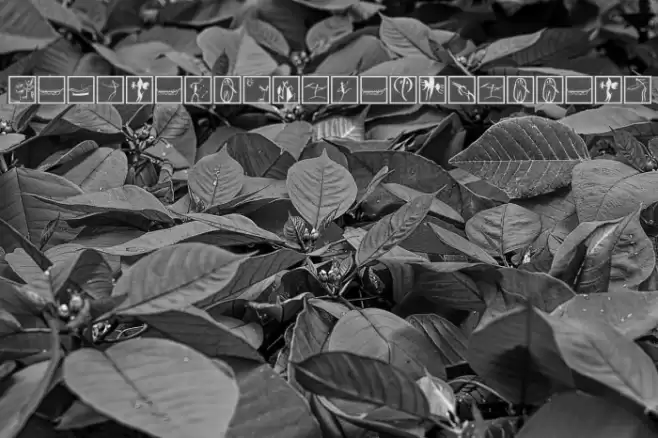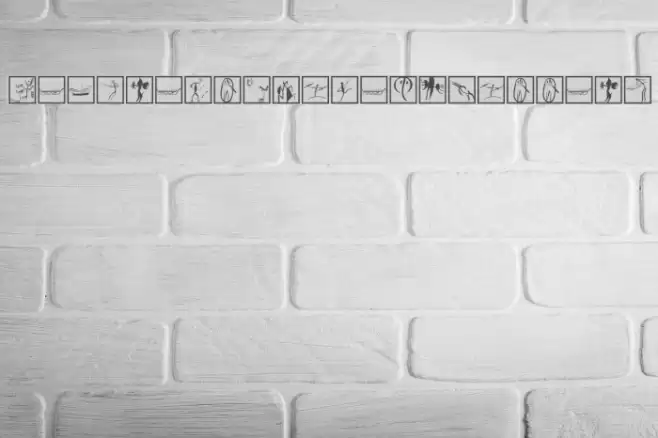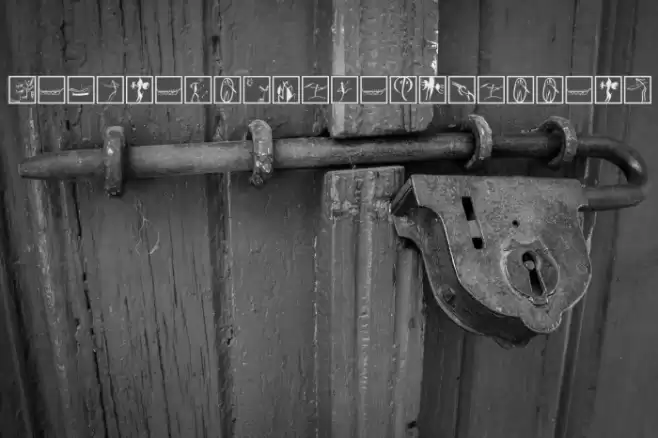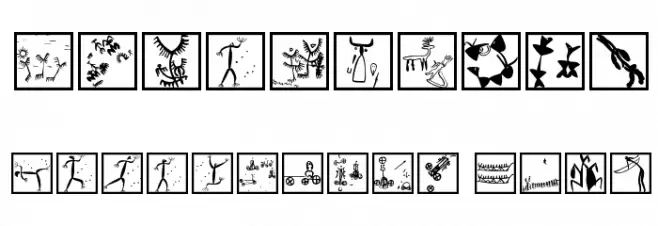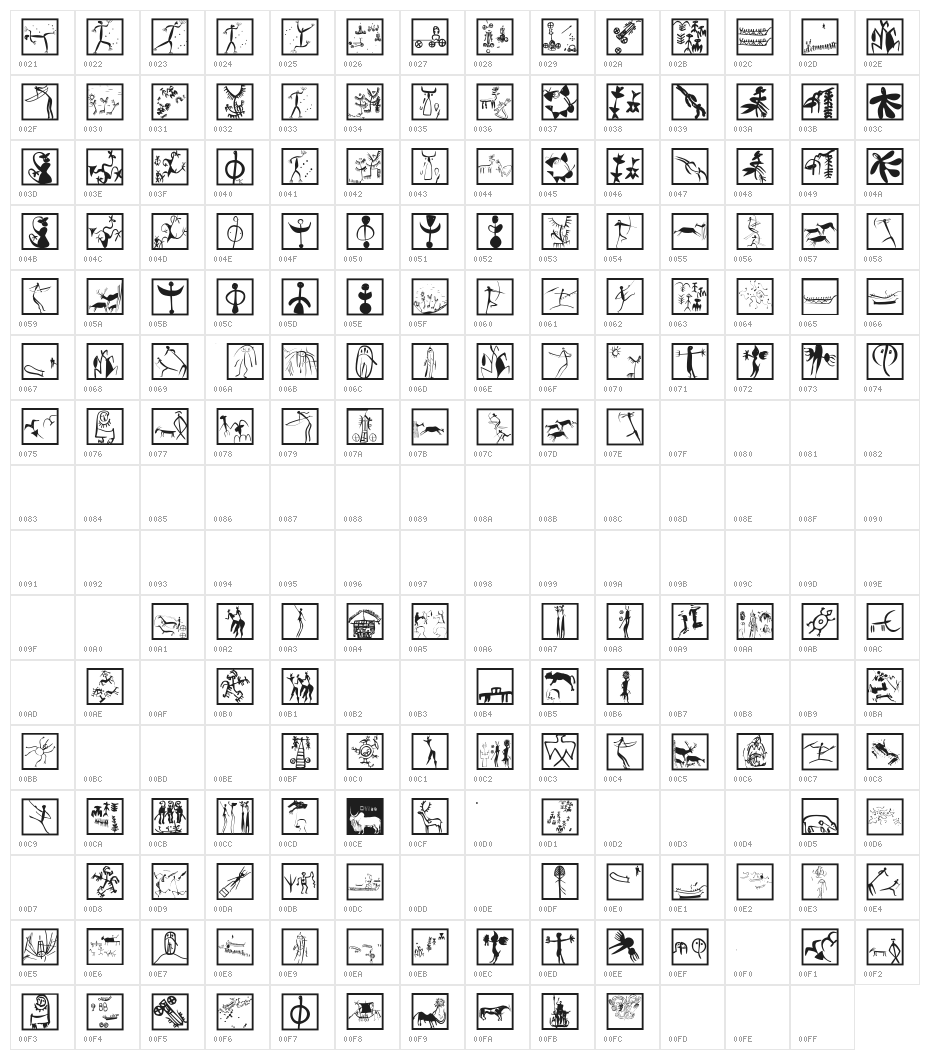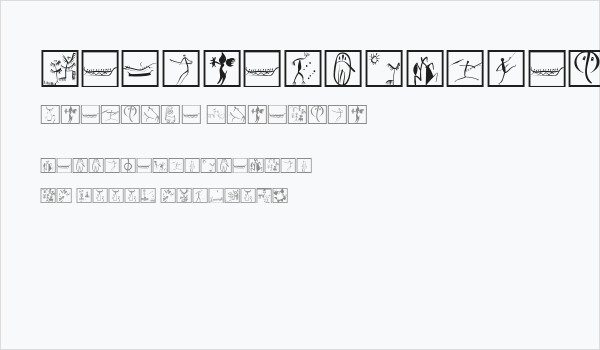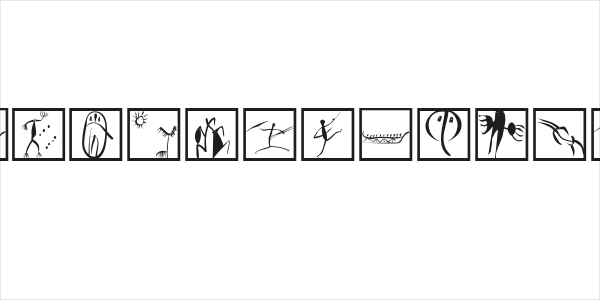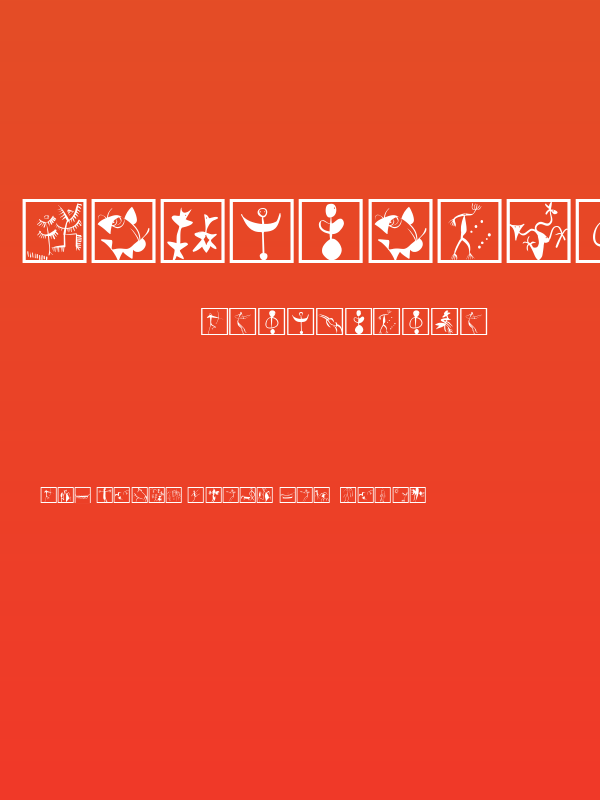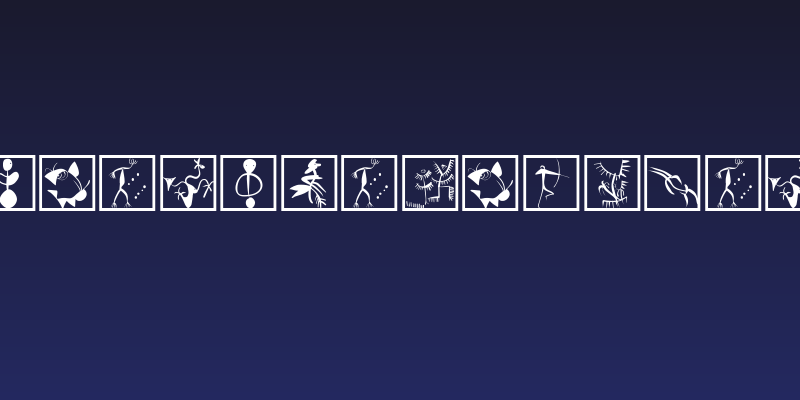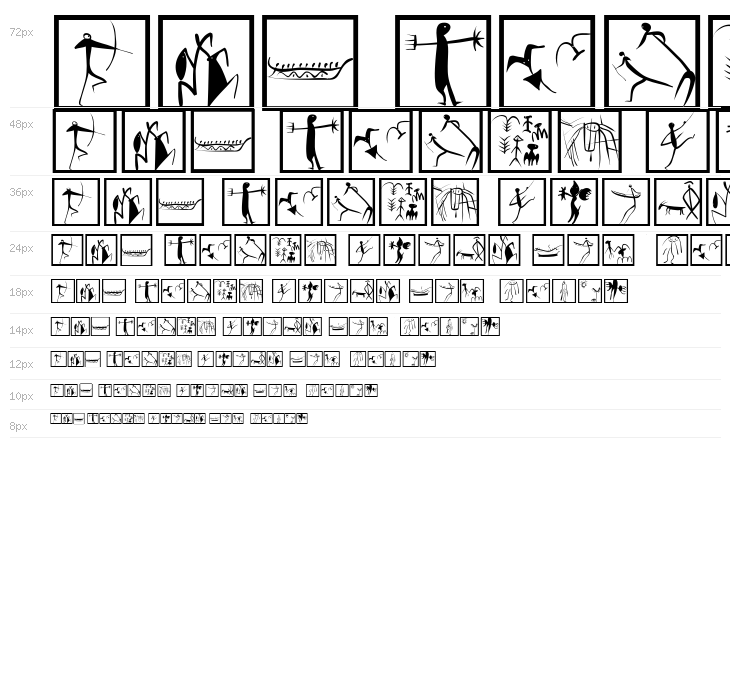
BeforeAlphabetsGallery Font
BeforeAlphabetsGallery Description
A collection of pictographic symbols inspired by prehistoric or ancient cave art, featuring abstract human, animal, and nature motifs within square frames. The designs are highly illustrative, with irregular line work and varying levels of detail, evoking a primitive, hand-drawn aesthetic rather than a traditional alphabetic font.
Primitive pictographic symbols resembling ancient cave drawings from Uncategorized fonts.
- Proposed Projects: Educational materials about early writing, museum displays, historical documentaries, creative art projects, themed posters.
- Overall Style: Primitive, Decorative, Artistic
- Use Case: Decorative headings, thematic artwork, educational visuals